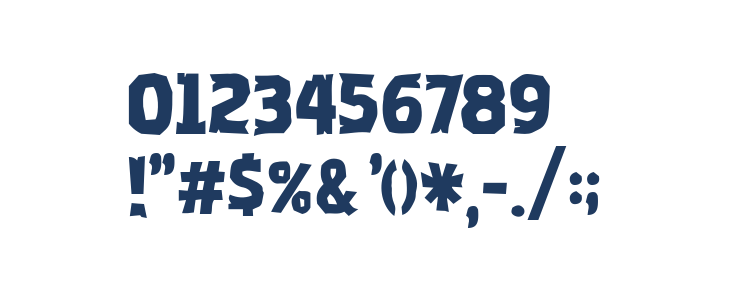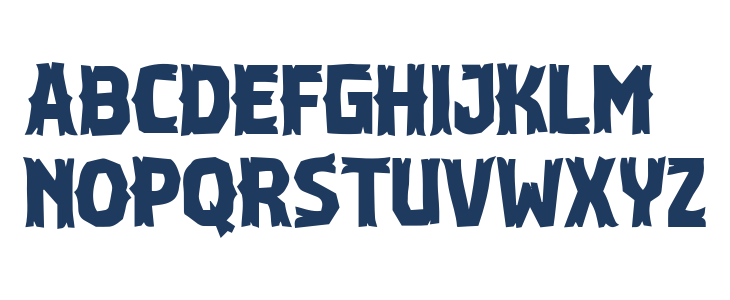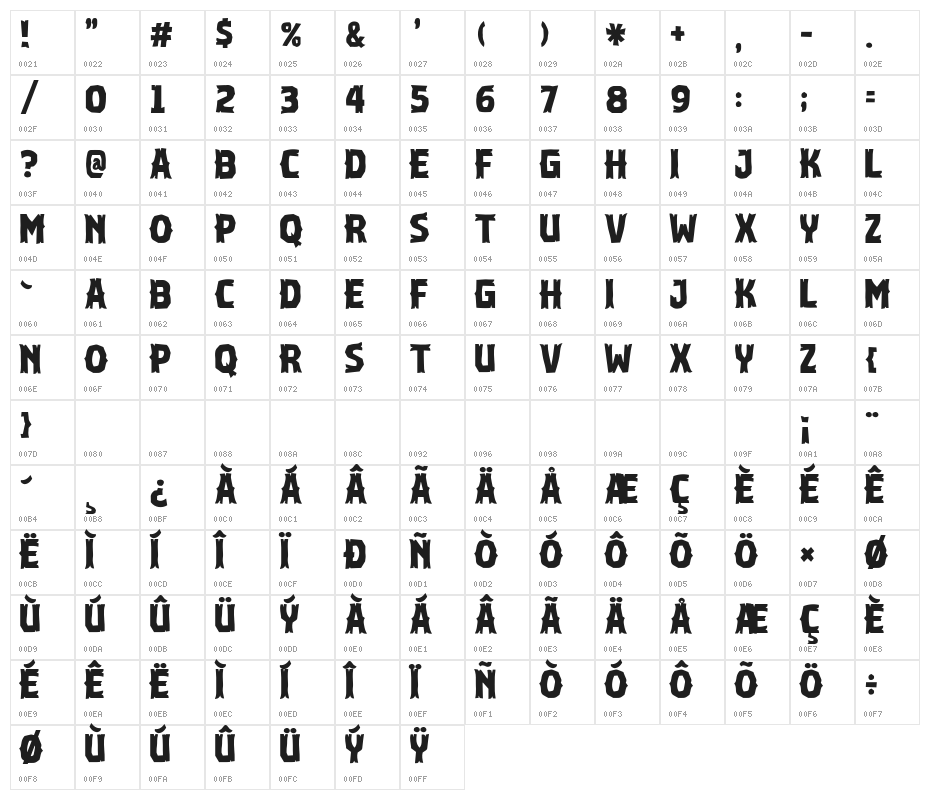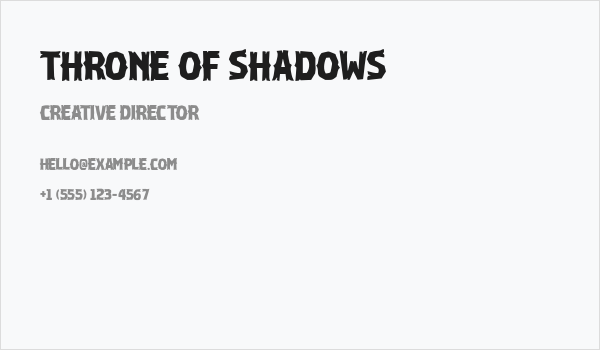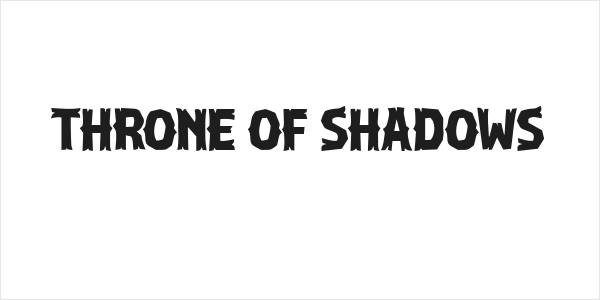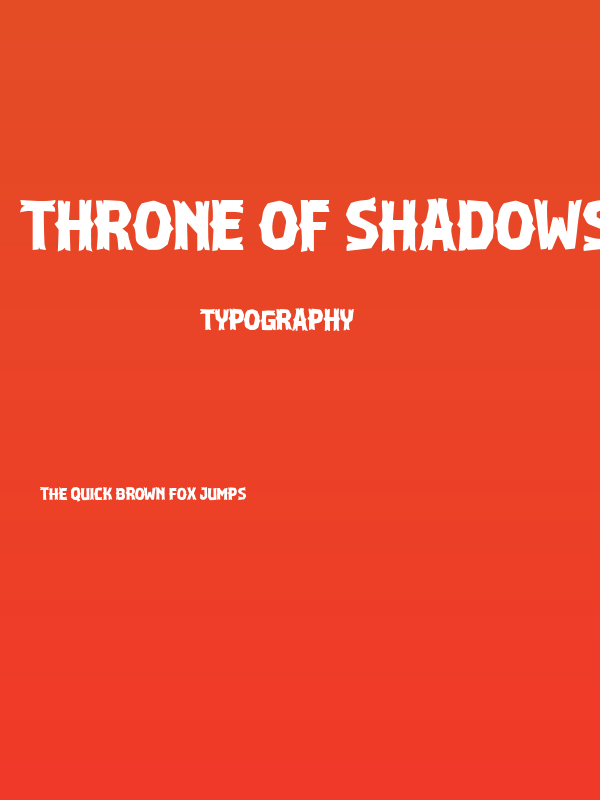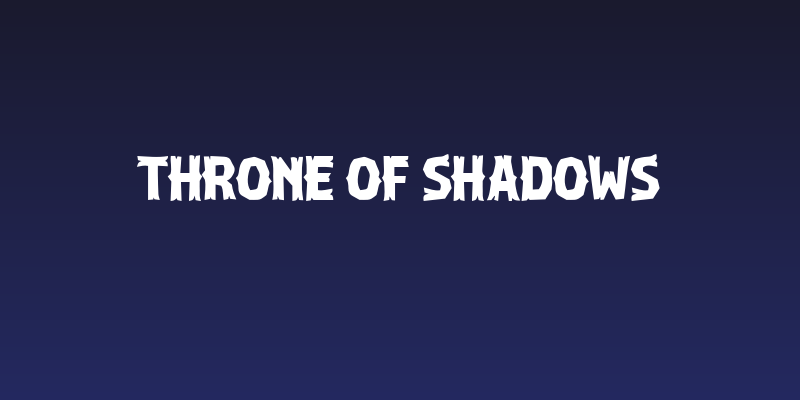
Throne of Shadows Font
Throne of Shadows Description
A bold, jagged, and angular display typeface with irregular, sharp edges and a dramatic, shadowy appearance. The characters are uppercase only, with heavy strokes and uneven contours, giving a menacing and theatrical vibe.
| Overall Style | Decorative, Dramatic, Horror, Fantasy |
| Use Case | Headlines, Posters, Logos, Event Titles |
| Proposed Projects | Horror movie posters, Halloween invitations, video game titles, fantasy book covers, event branding. |